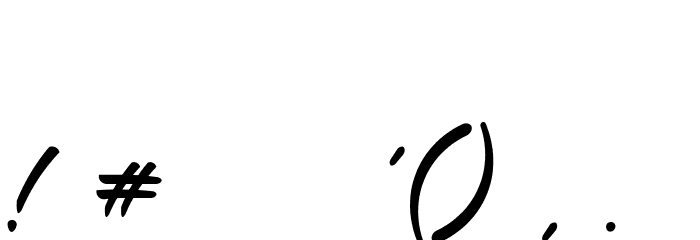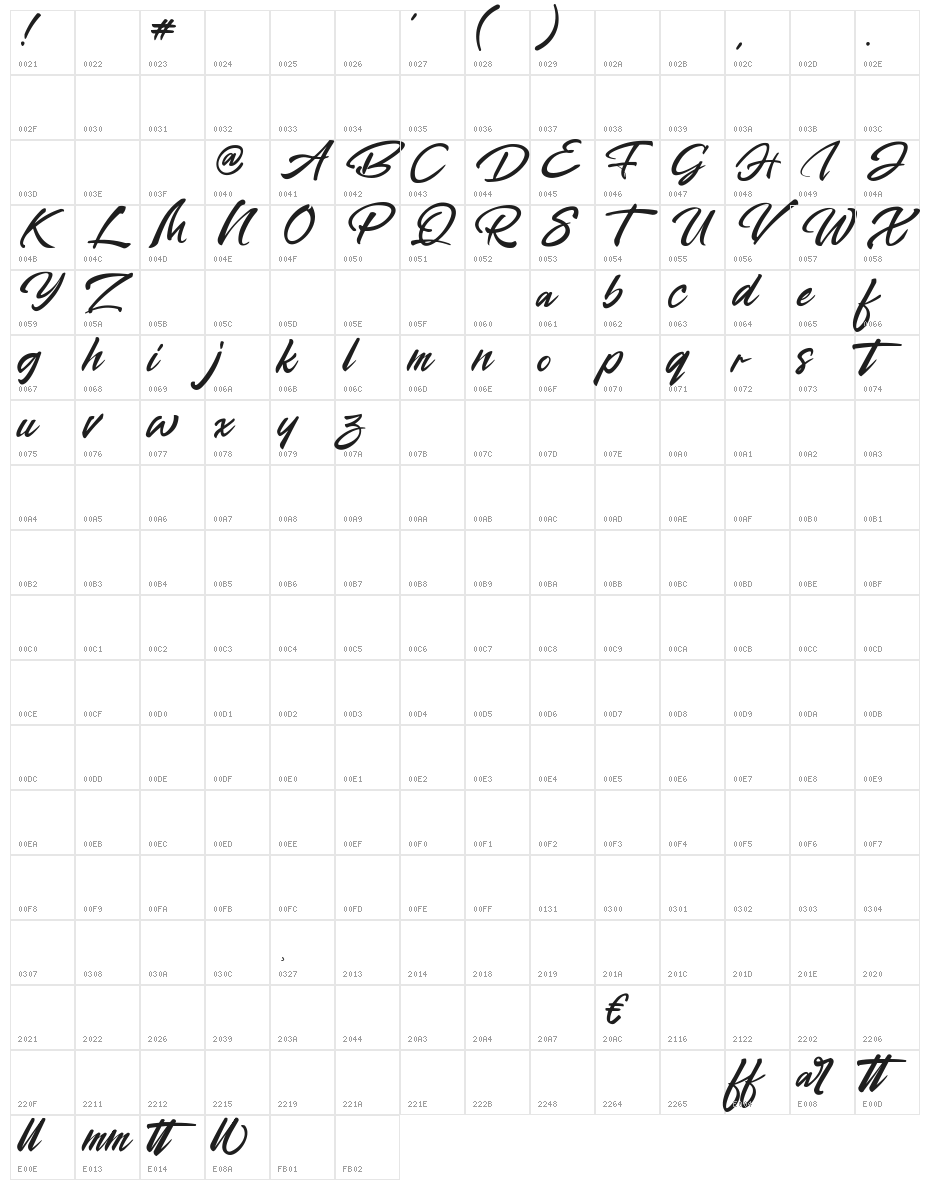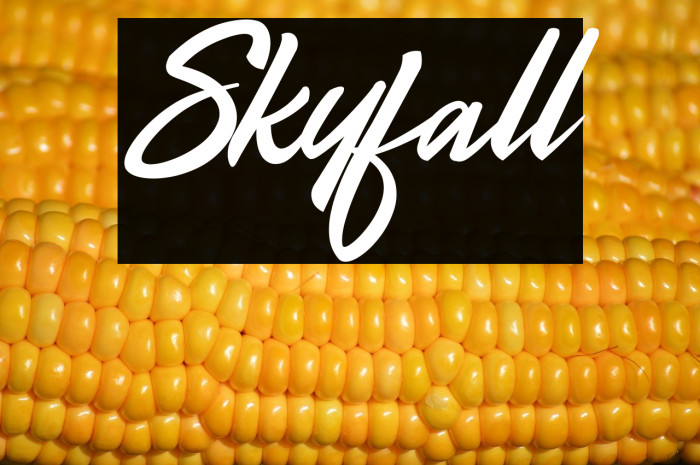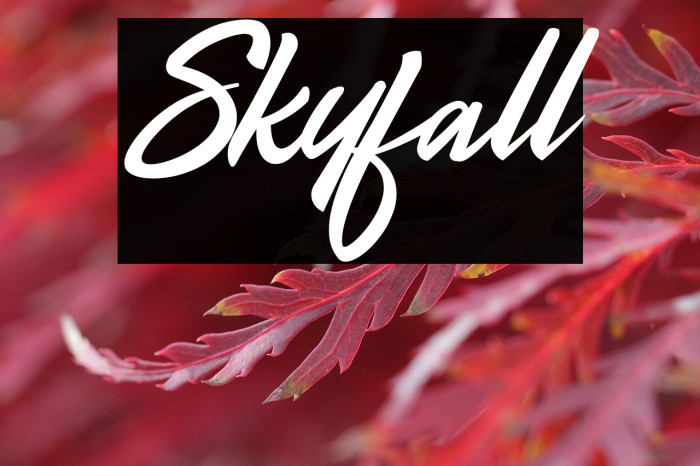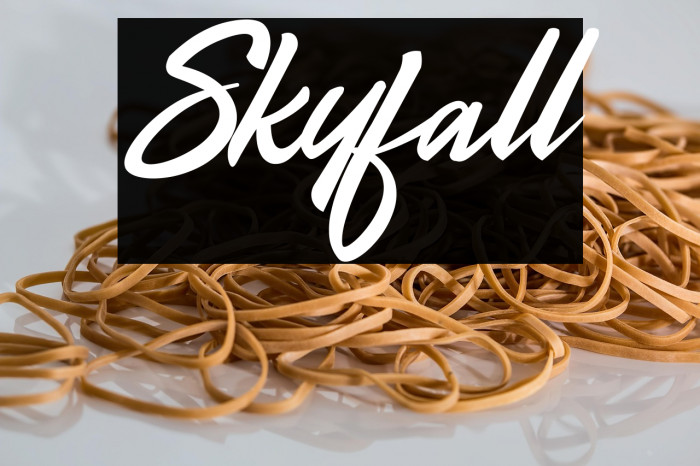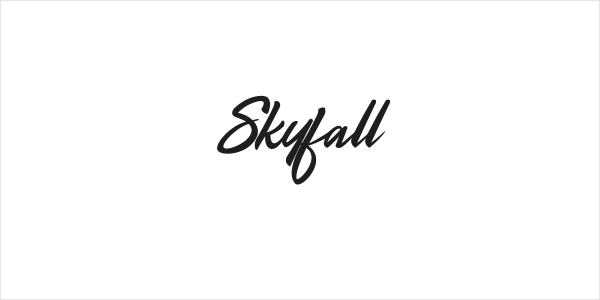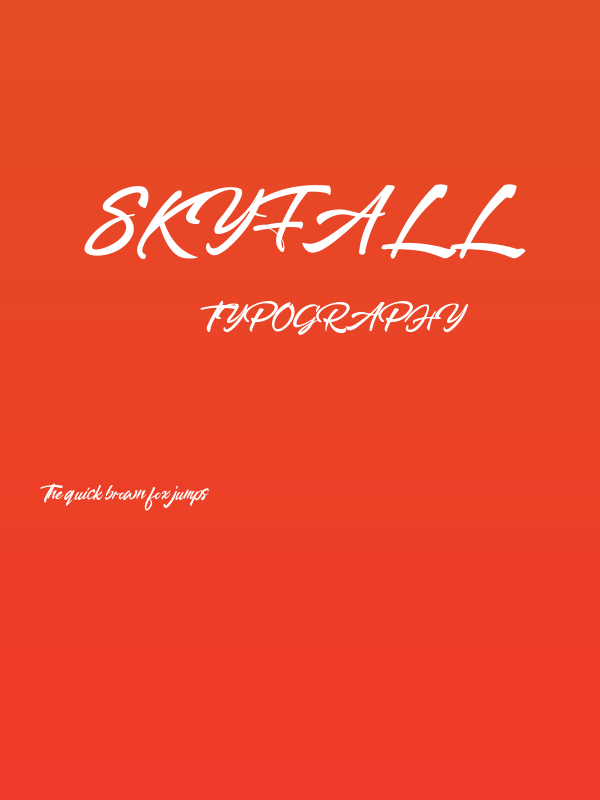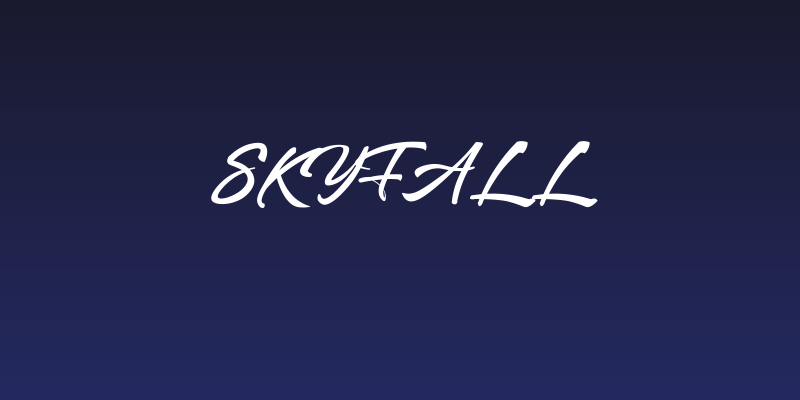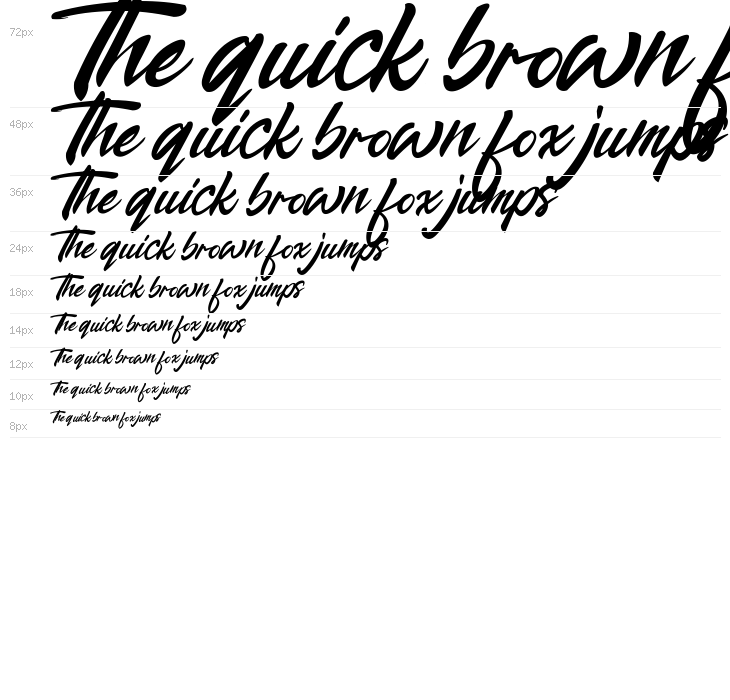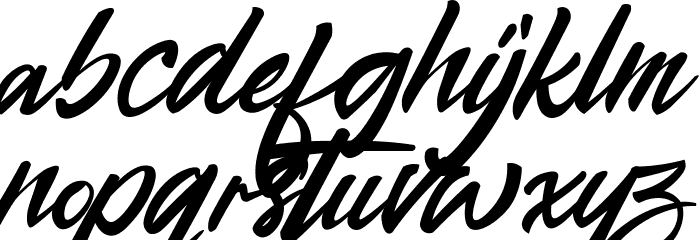
Skyfall Font
Skyfall Description
This font exudes a dynamic and energetic feel with its bold, cursive script style. The characters are fluid and connected, creating a sense of movement and elegance. The uppercase letters are slightly more elaborate, with sweeping curves and flourishes that add a touch of sophistication. The lowercase letters maintain a consistent flow, enhancing readability while retaining the font's artistic flair. The numbers and special characters are designed to match the overall aesthetic, ensuring a cohesive look across all text elements. This font is perfect for projects that require a personal touch or a sense of creativity.